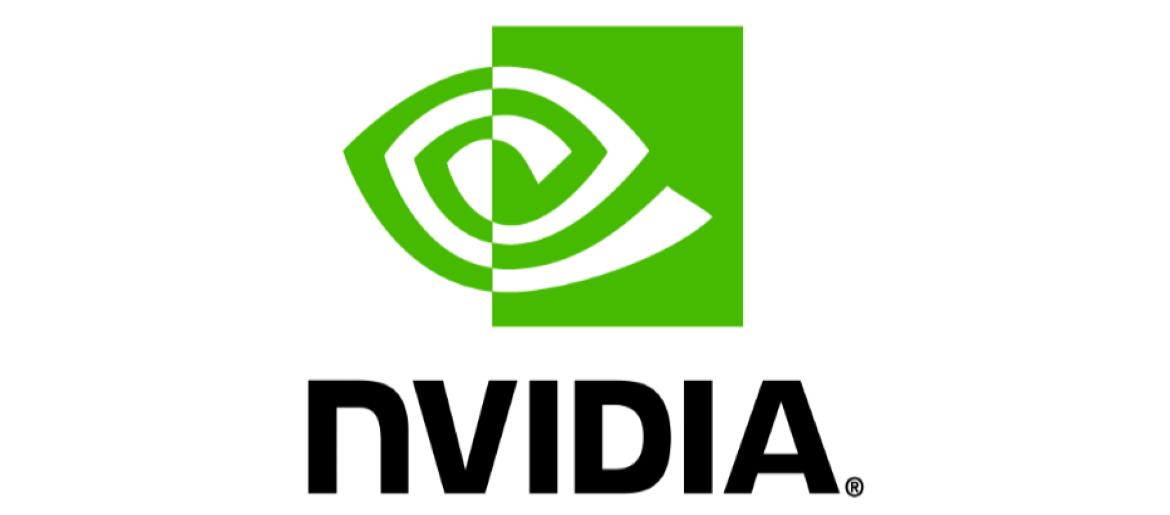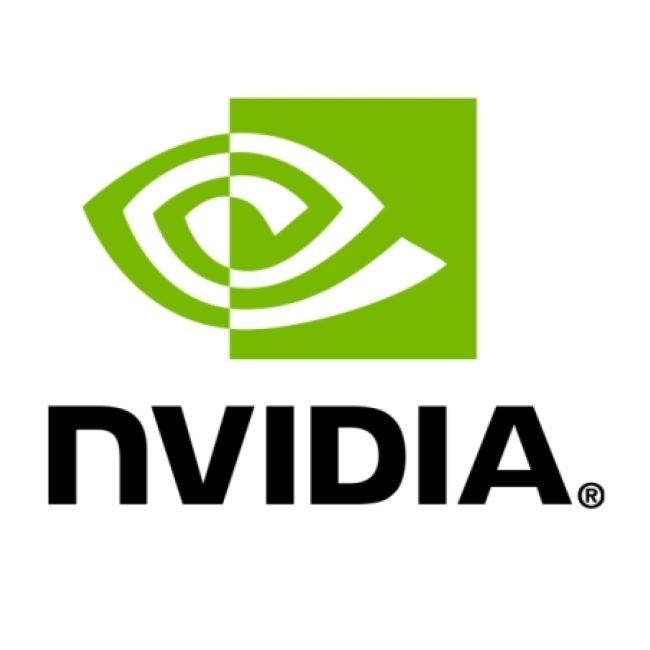
Nvidia Font is a key element of the brand’s identity, reflecting innovation, technology, and high performance. The Nvidia logo font appears on graphics cards, software, and marketing materials worldwide, reinforcing the company’s image as a leader in visual computing.
The Nvidia logo is defined by the Handel Gothic typeface probably, a Swiss sans-serif design that masterfully blends geometric precision with unique, softened details. Its modern and sleek character comes from this interplay of rigid straight lines and unexpected curved elements within the letterforms.
Nvidia Font
By using a modern and bold font, Nvidia effectively conveys innovation, performance, and reliability to its global audience.